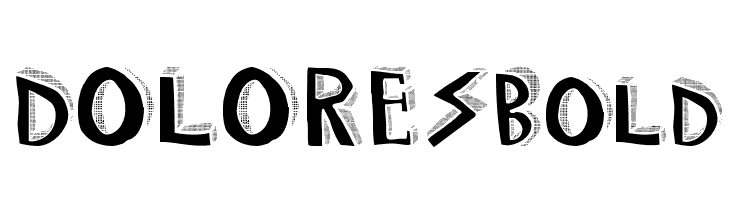
A hand-drawn, rustic font with a distressed and organic appearance.
A hand-drawn, rustic font with irregular strokes and a playful, edgy aesthetic.
A bold, textured font with a hand-drawn, artistic style.